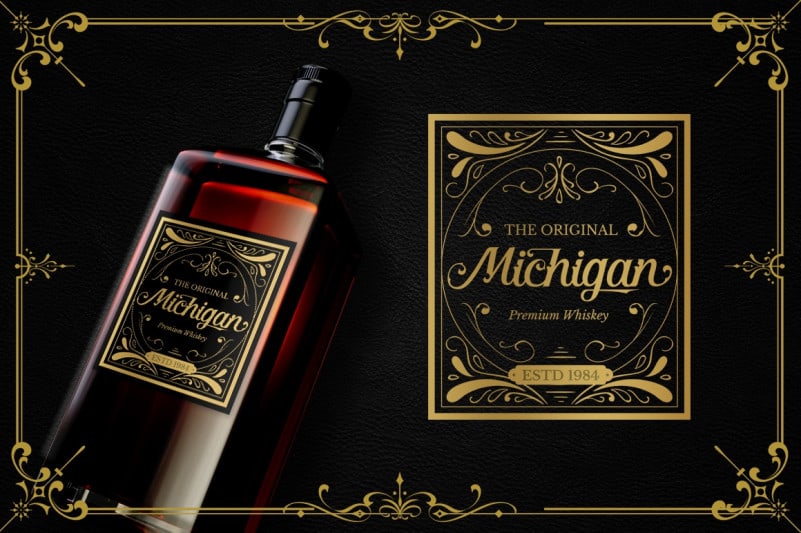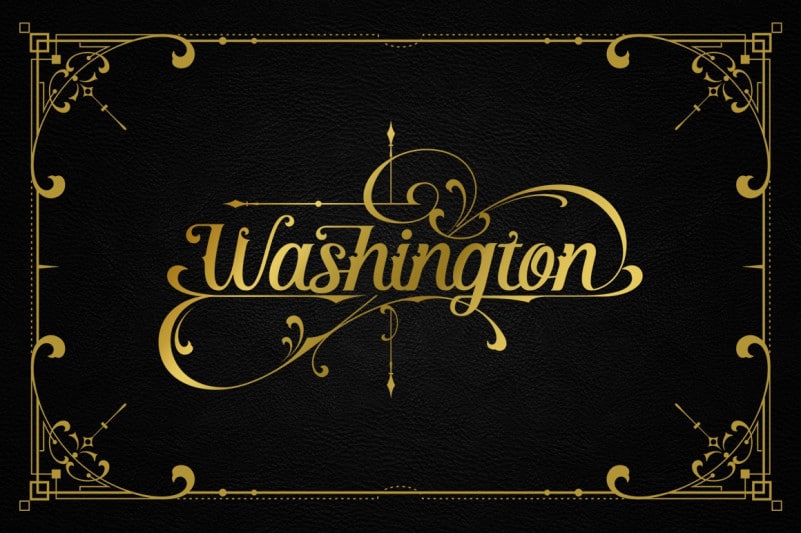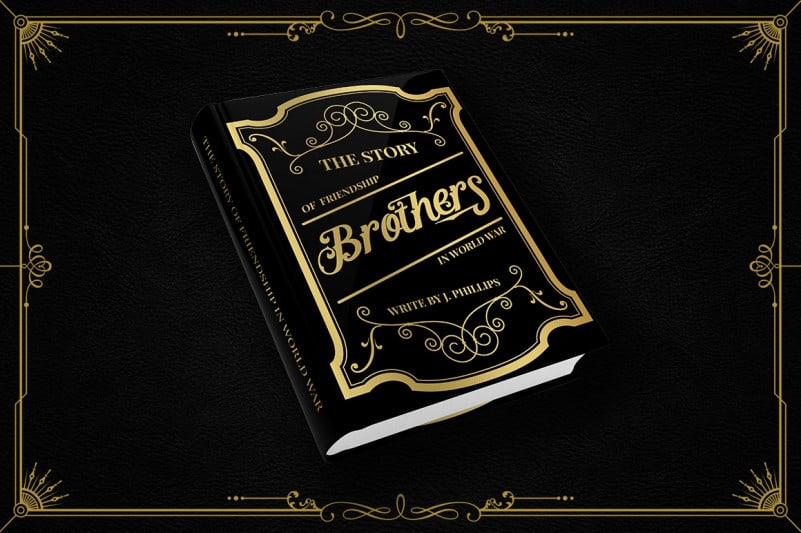
Dansdesign Proudly present “Kingston Blackletter Font” modern blackletter font, Masterfully designed to become a true favorite. The product also includes a set of decorative ornaments. This combination allows you to easily build beautiful vintage designs in a short time. this font are great and usefull for product logo, poster title, headline, packaging, badge, wedding card logo, clothing brand logo,Vintage design and much more.
Kingston